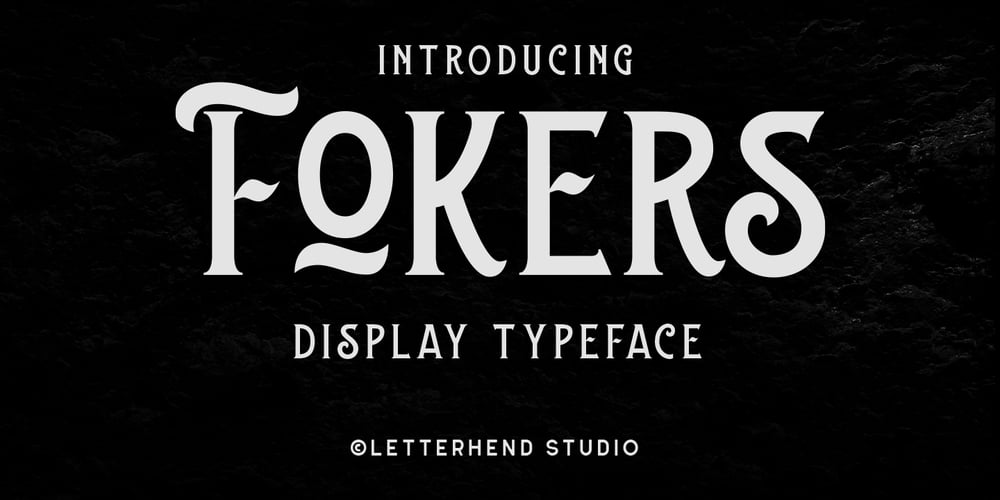
Fokers Font Family was designed by Hendry Juanda and published by Letterhend. Fokers contains 3 styles and family package options. Fokers, a new display typeface with classy and luxury look! Fokers’ different styles works perfectly for headline, logotype, apparel, invitation, branding, packaging, advertising, and more. Fokers comes in uppercase, lowercase, with punctuation, symbols, numerals, stylistic set alternate, ligatures and also multi-lingual support.